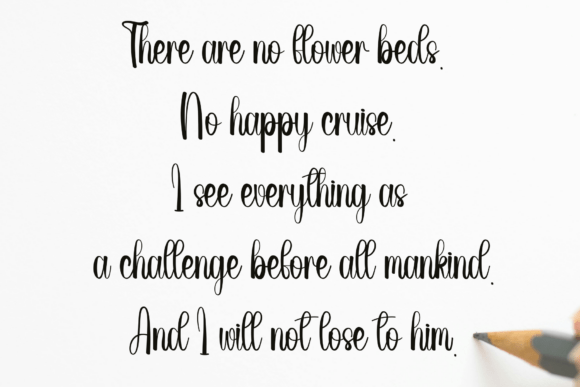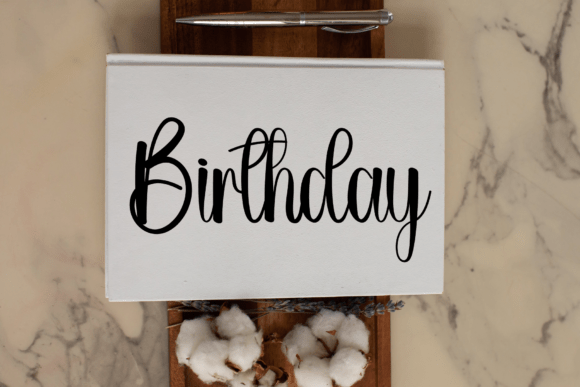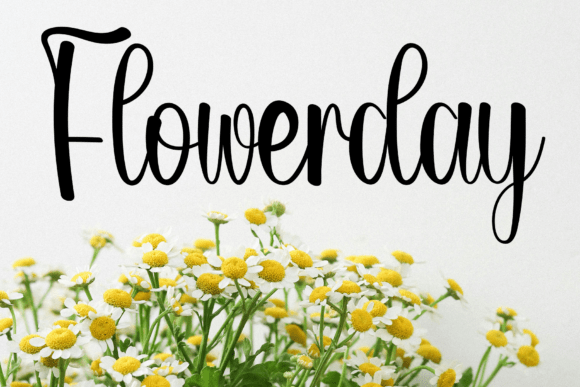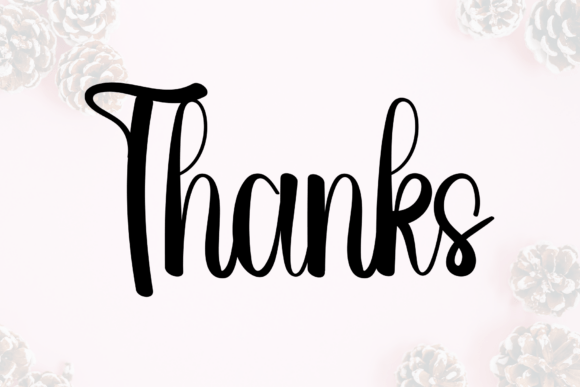
Introduction to Magicheart Font
Magicheart is a sweet and beautiful handwritten font.
Featuring characters that dance along the baseline, this font will add a cozy accent to any design project you wish to create .
Magicheart Font offers exceptional quality and versatility, making it a valuable addition to your design toolkit. Whether you’re creating for personal projects or commercial use, Magicheart Font delivers professional results.